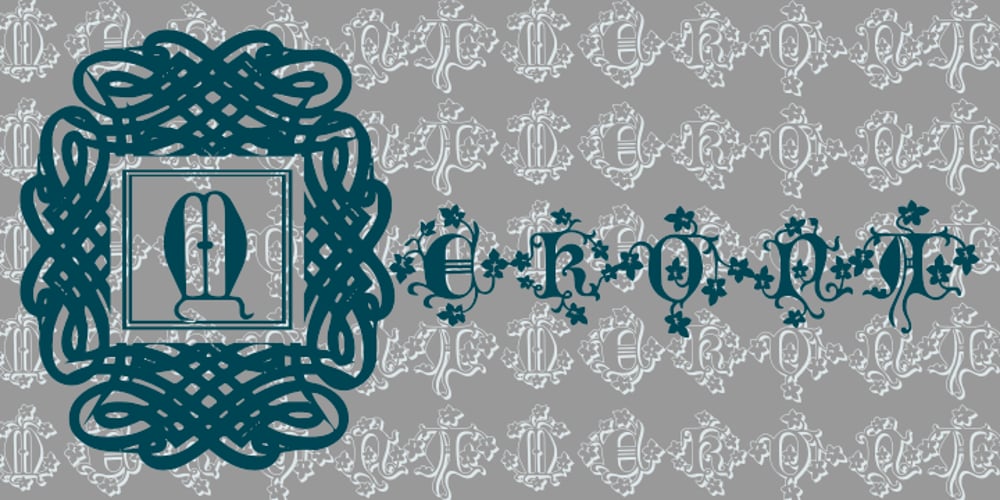
Merona Font Family was designed by Iza W and published by Intellecta Design. Merona contains 4 styles and family package options. A fancy set of merovingean script inspired fonts, suitable for medieval like visual designs